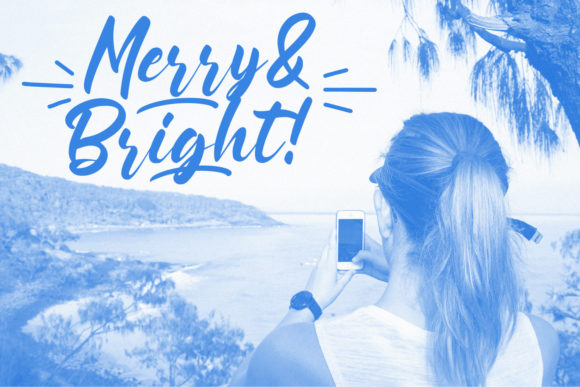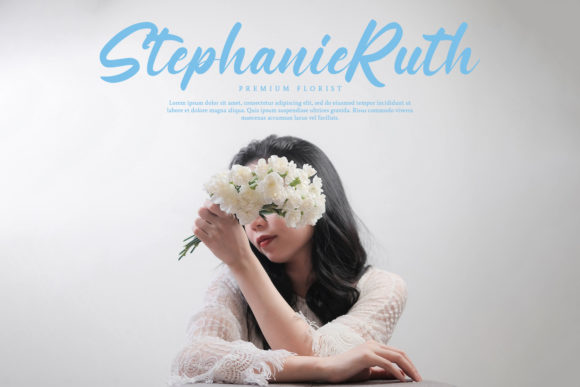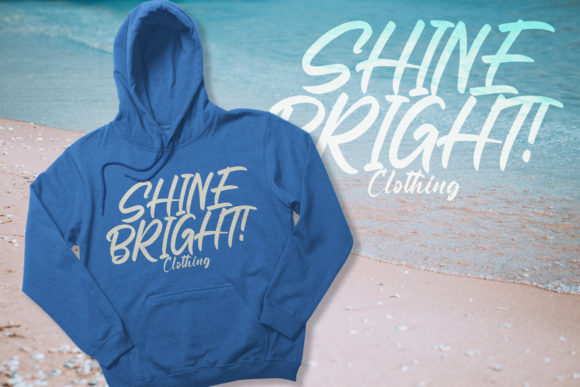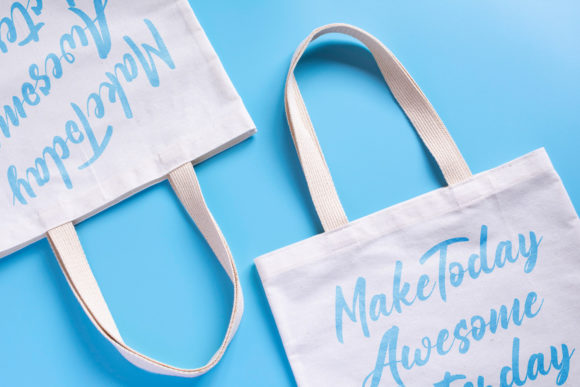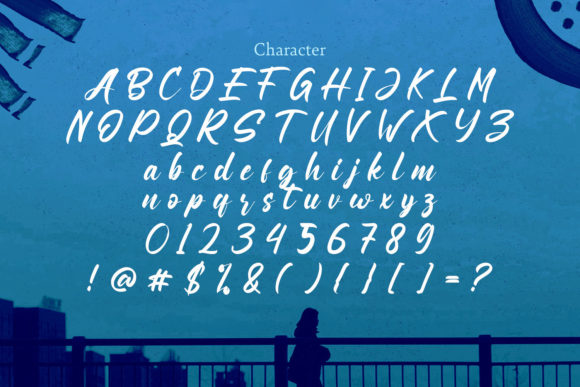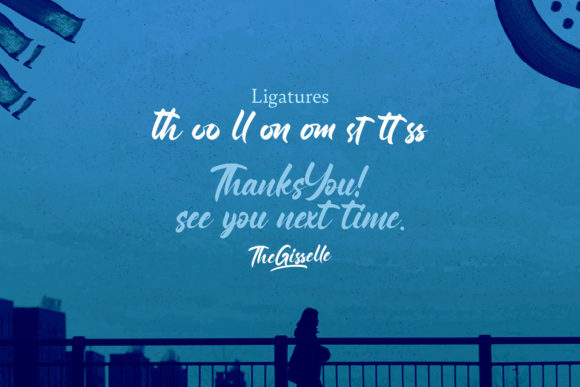
About Gisselle Font
Gisselle is an exquisite and flowing paint brushed handwritten font that will infuse your design projects with a touch of elegance and sophistication. With its unique feel and stunning impact, this font is guaranteed to add a luxurious spark to any creative endeavor.
The brush strokes of Gisselle are beautifully crafted, giving each letter a sense of movement and fluidity. The flowing nature of the characters creates a dynamic and expressive look, making your designs visually captivating and engaging. The paint brushed effect adds a touch of texture and personality, giving your projects a handmade and artistic feel.
Whether you’re designing logos, branding materials, invitations, posters, or any other project, Gisselle will effortlessly enhance the overall aesthetics. Its versatility allows it to adapt to various design styles, from modern and sleek to elegant and romantic. The unique feel of Gisselle sets it apart, making it a standout choice for those who want their designs to make a lasting impression.
Adding a luxury spark to your projects, Gisselle is ideal for high-end and upscale designs. Its refined and sophisticated look makes it suitable for fashion branding, editorial layouts, beauty products, and other glamorous projects. The stunning impact of Gisselle ensures that your designs will stand out and command attention.
In addition, Gisselle’s versatility extends to different mediums and applications. Whether you’re working on print materials or digital media, this font will bring a touch of elegance and style to your designs. It can be used for headlines, titles, quotes, social media posts, and more, allowing you to explore various creative possibilities.
Overall, Gisselle is a beautiful and flowing paint brushed handwritten font that exudes luxury and sophistication. Its unique feel and stunning impact make it a perfect choice for adding a touch of elegance to your design projects. With its versatility and ability to create visually captivating designs, Gisselle is a font that will elevate your creations and leave a lasting impression on your audience.